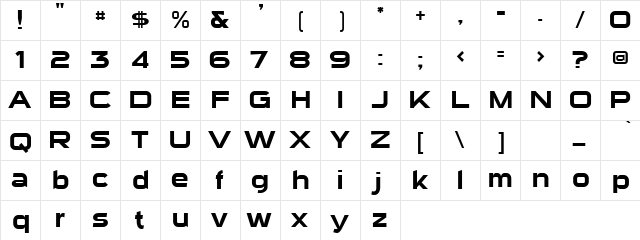
Aziz Gold Regular
Design Context for Aziz Gold Typeface
Aziz Gold takes a measured approach to typography — its balanced proportions and neutral character make it a reliable workhorse for both digital and print work.